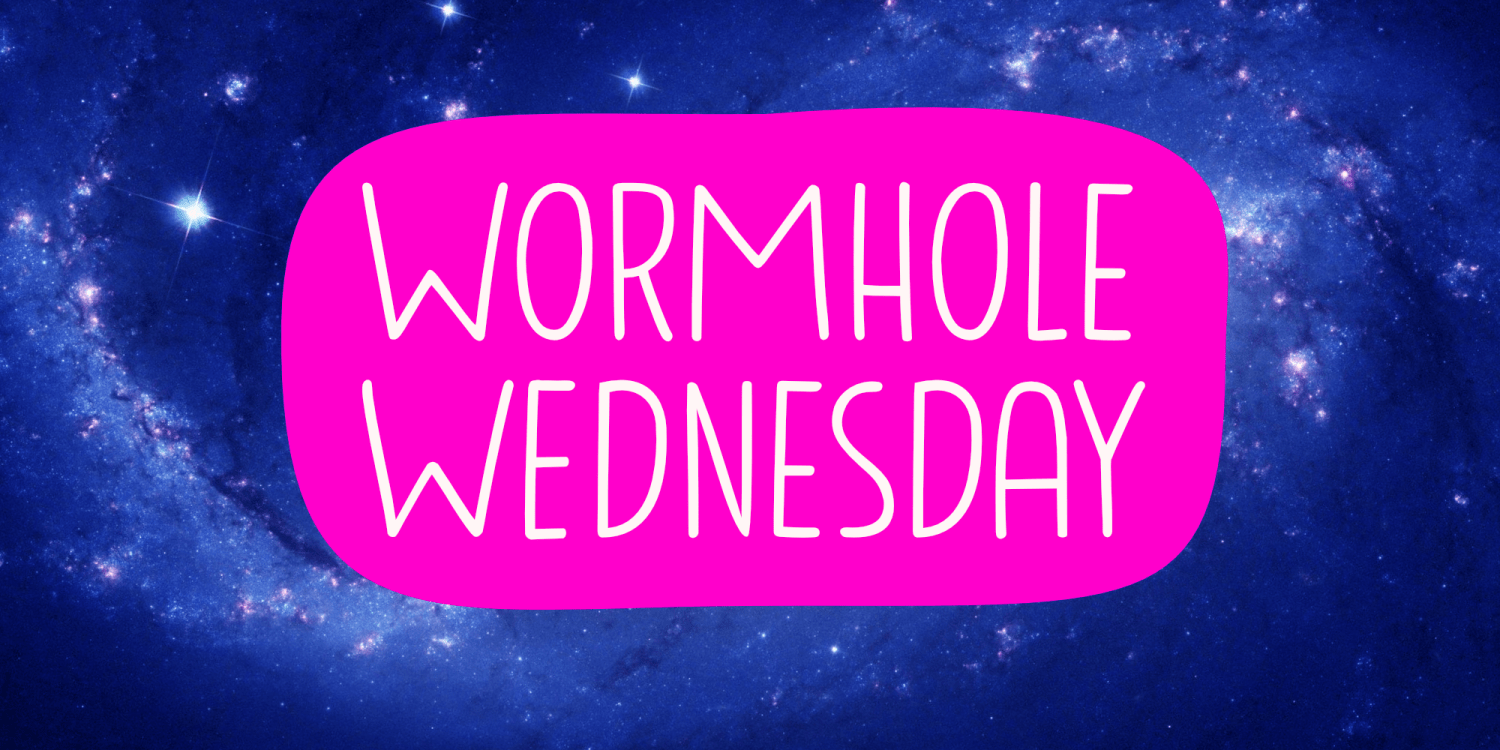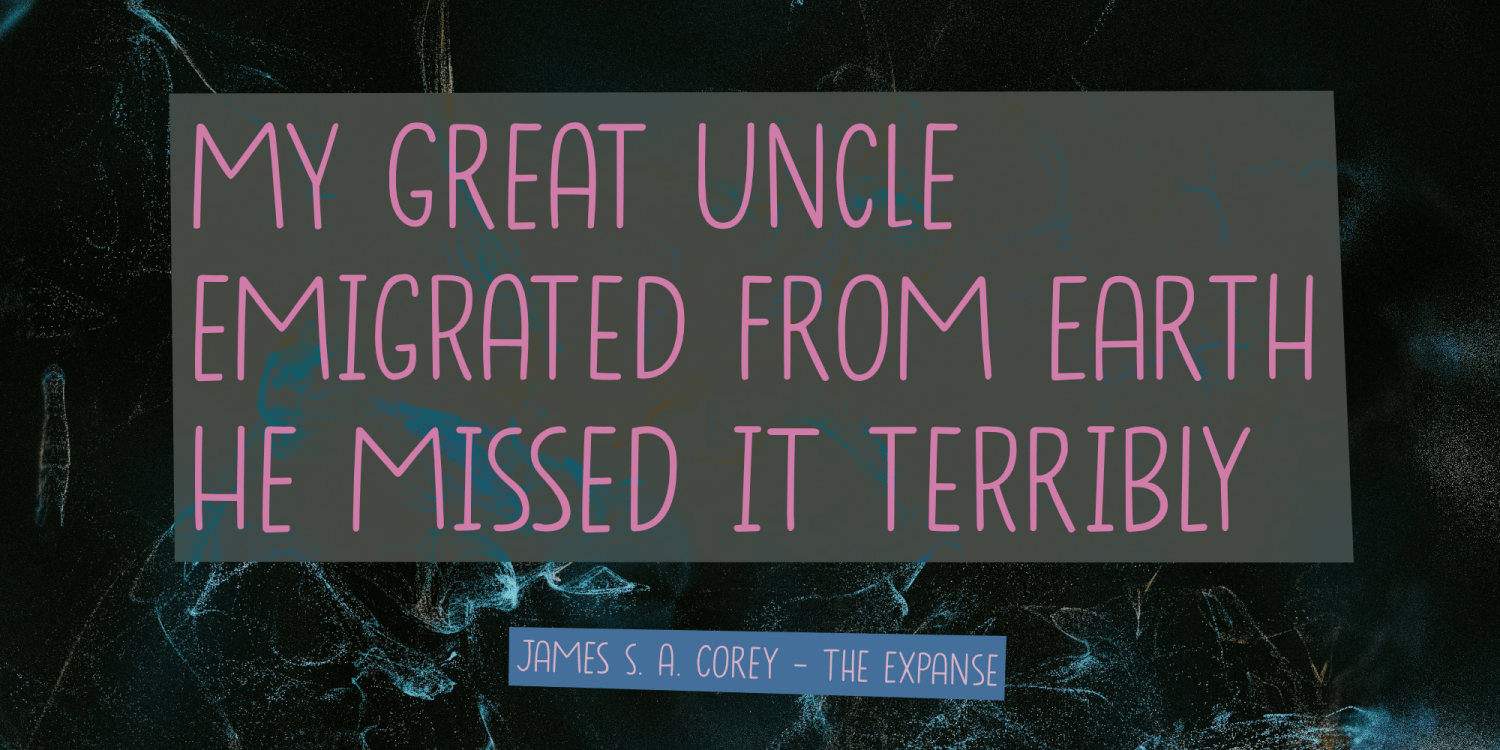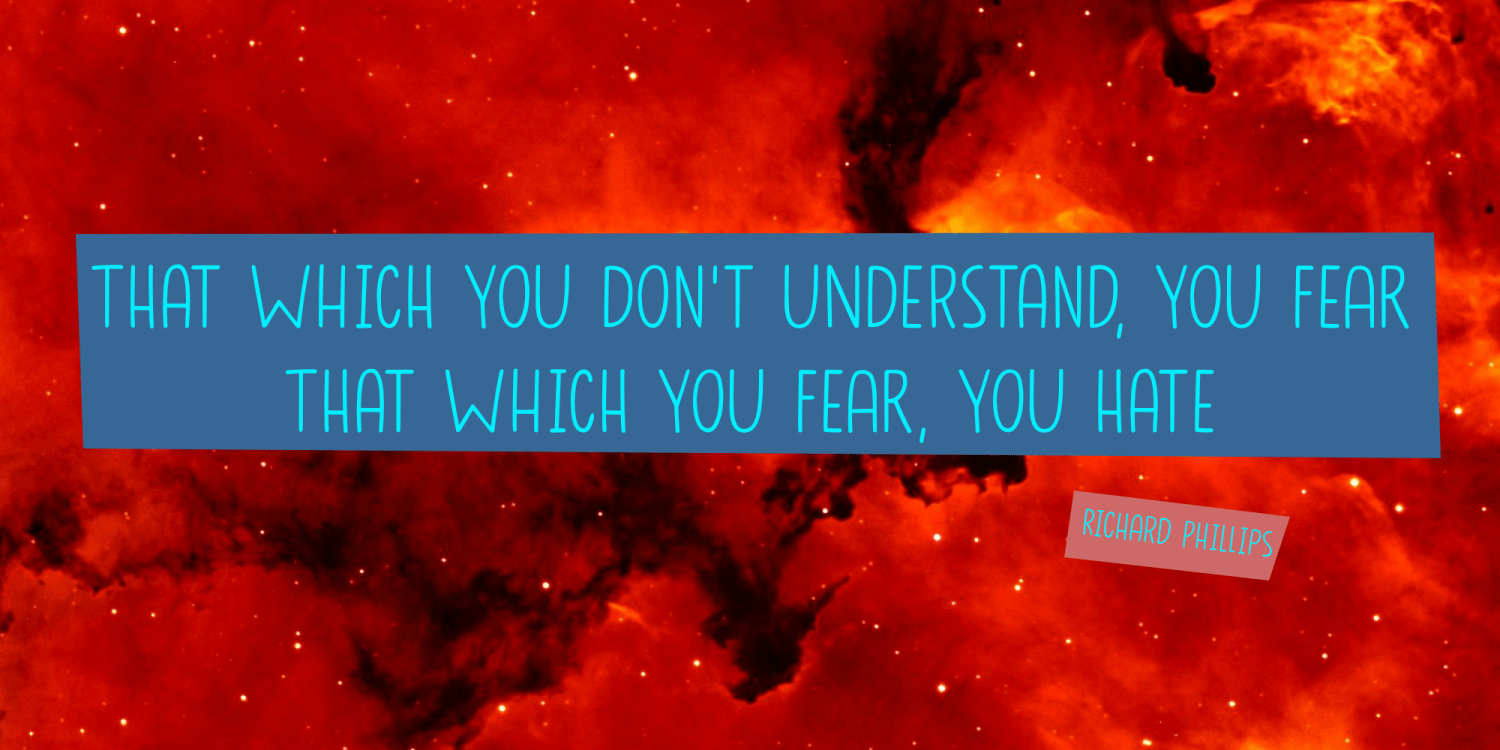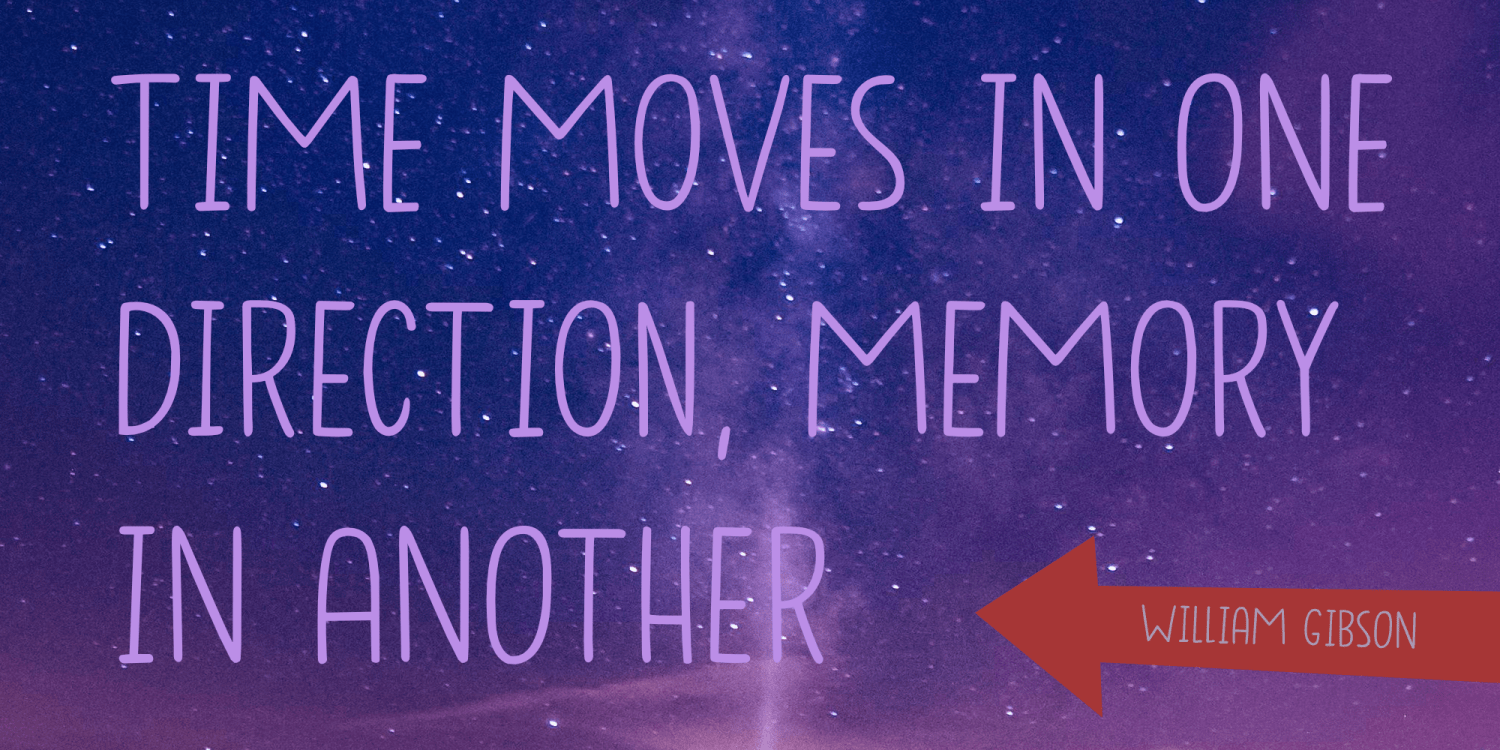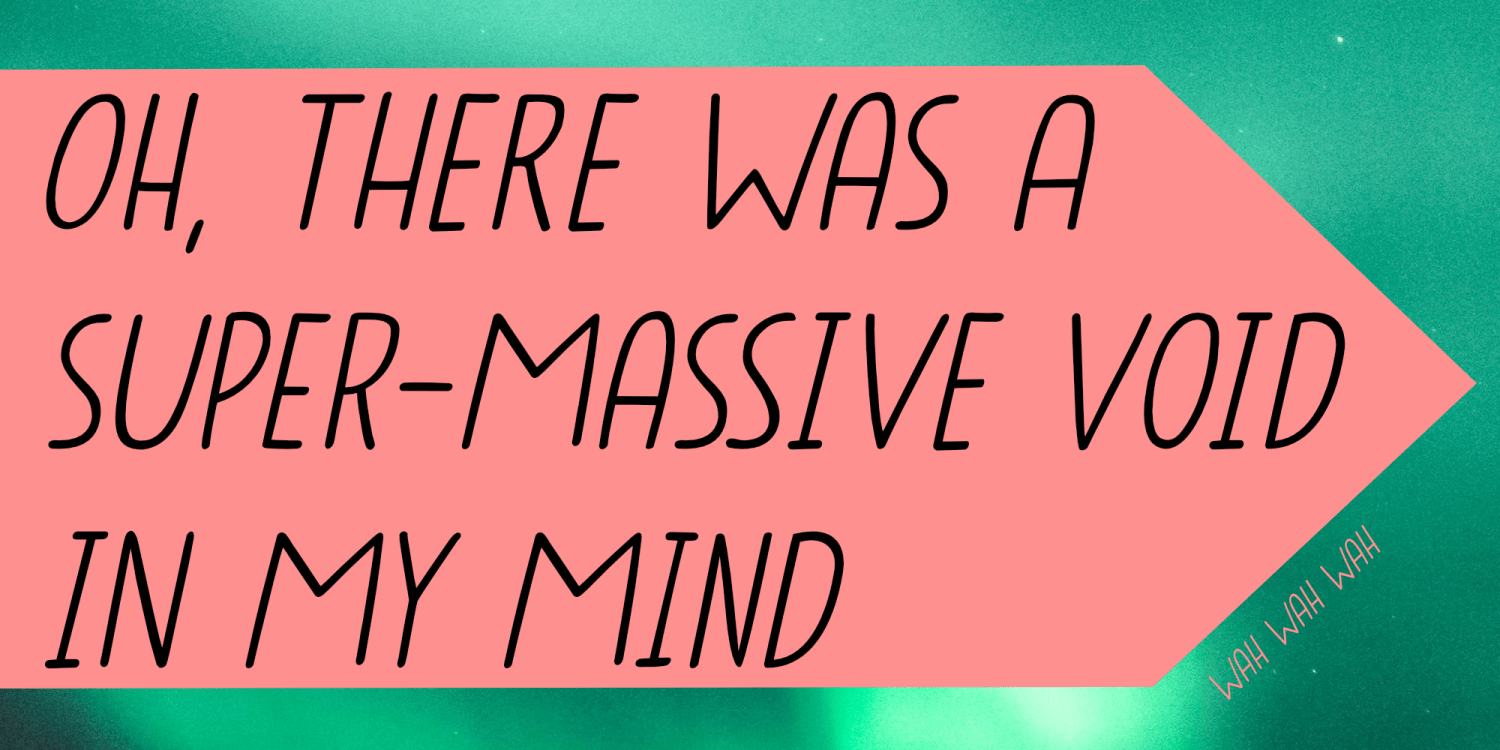
Wormhole Wednesday
Wormhole Wednesday is a handmade font that can be used for a variety of designs. Its light character makes it perfect for text on product packaging, in books or on websites. Wormhole Wednesday comes with a set of alternates for the lower case glyphs and extensive language support!